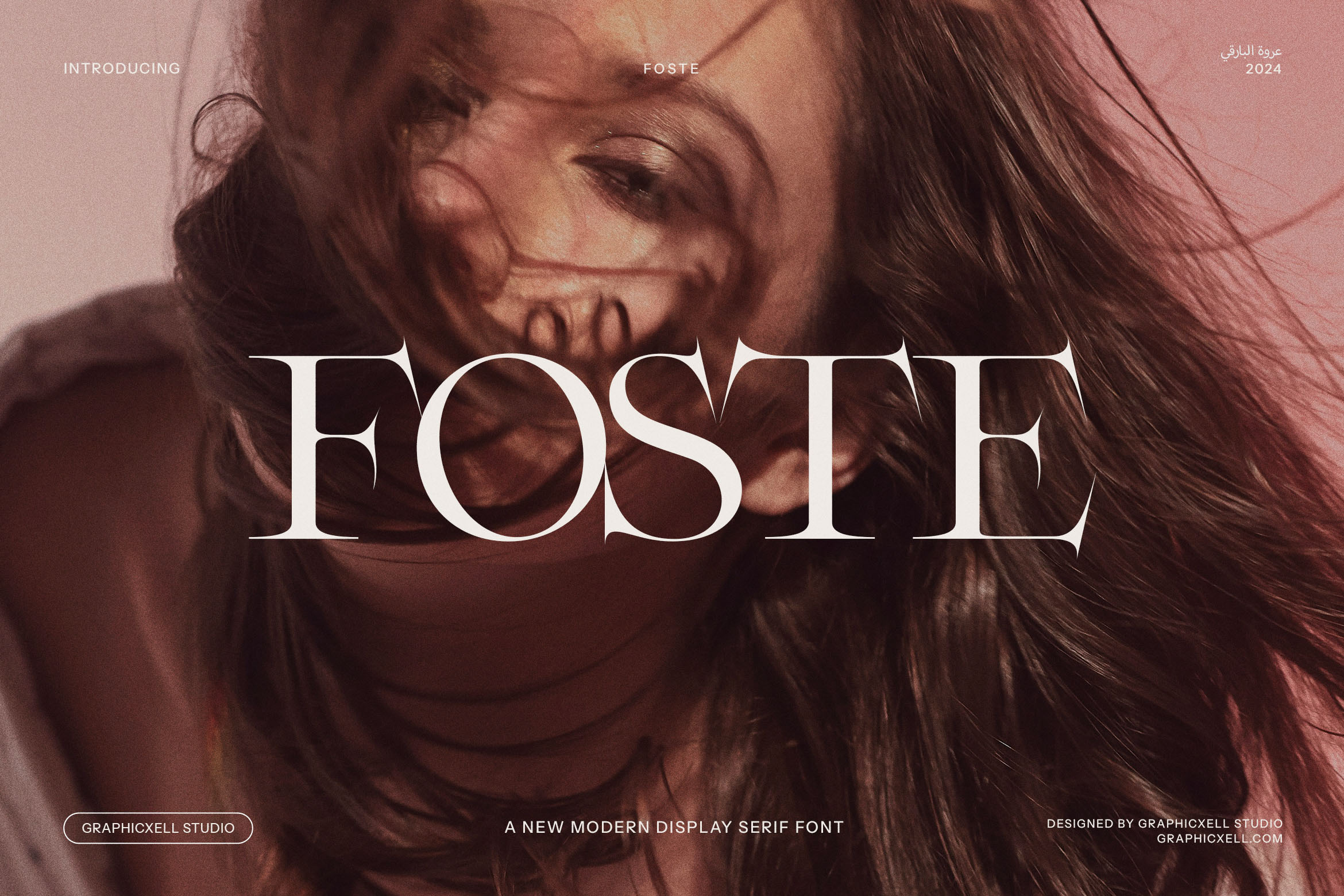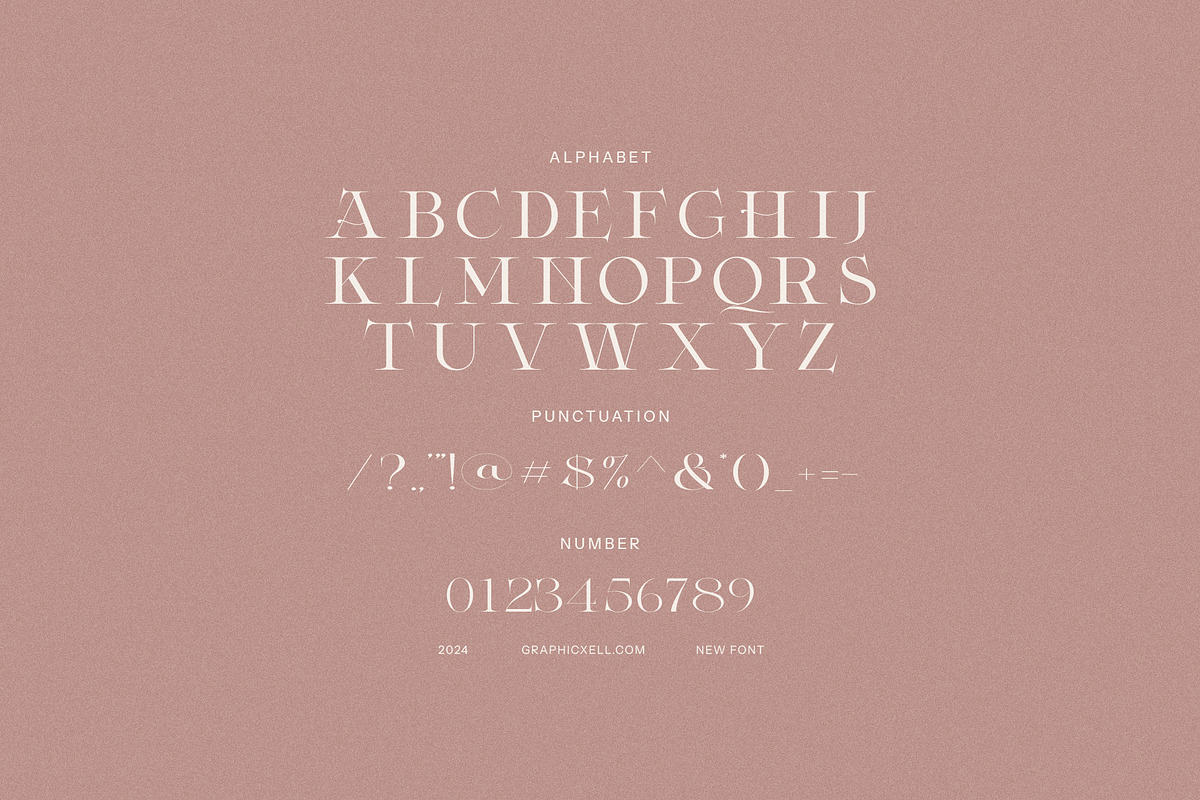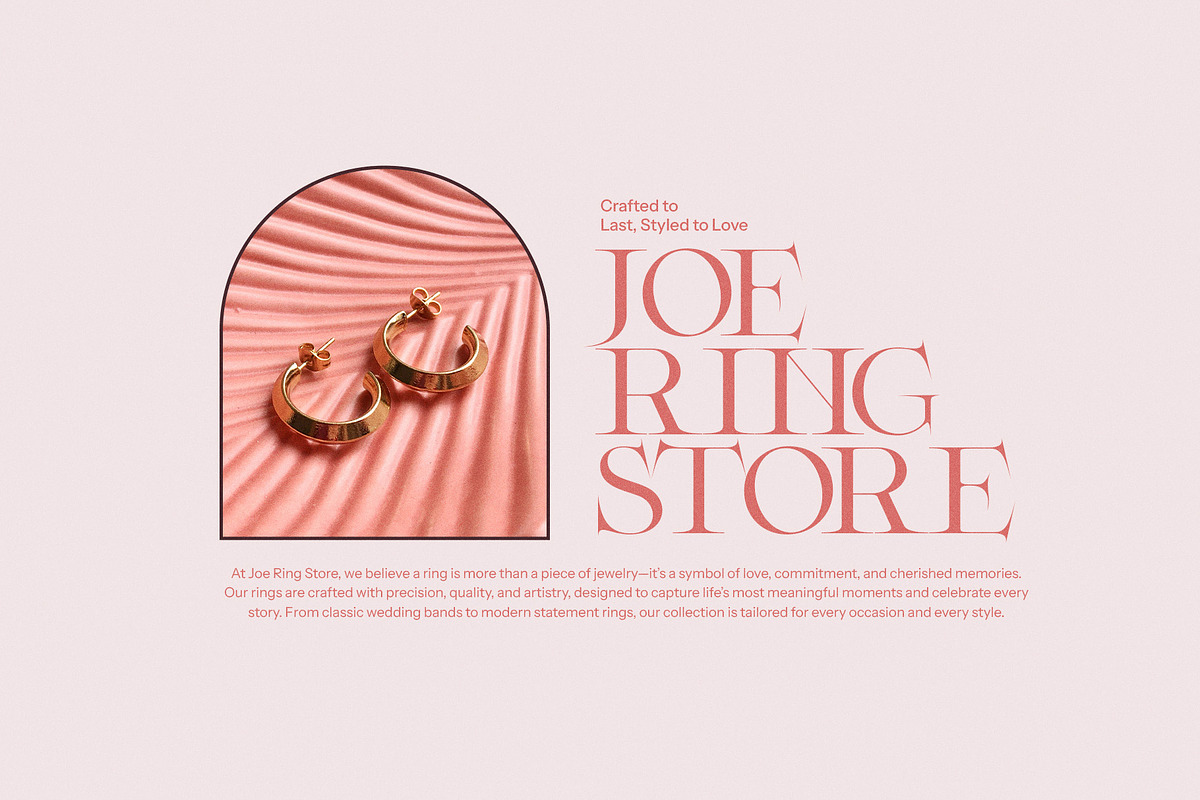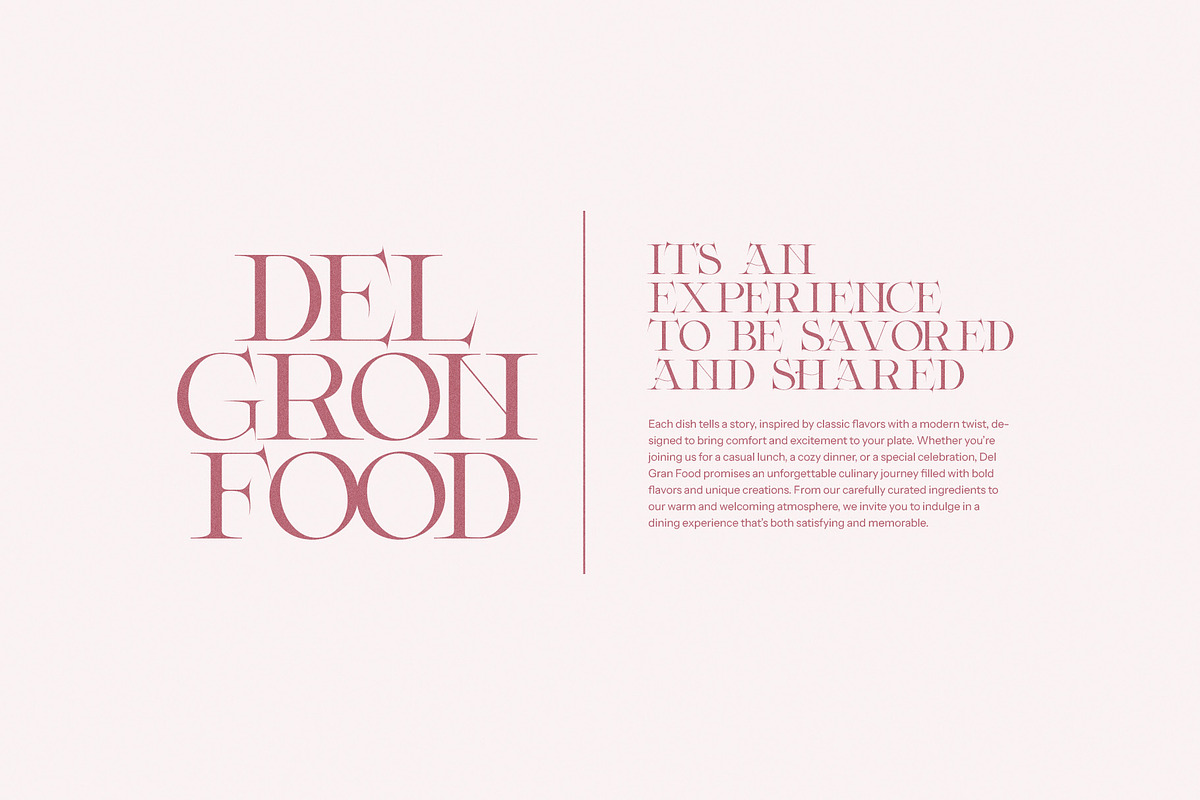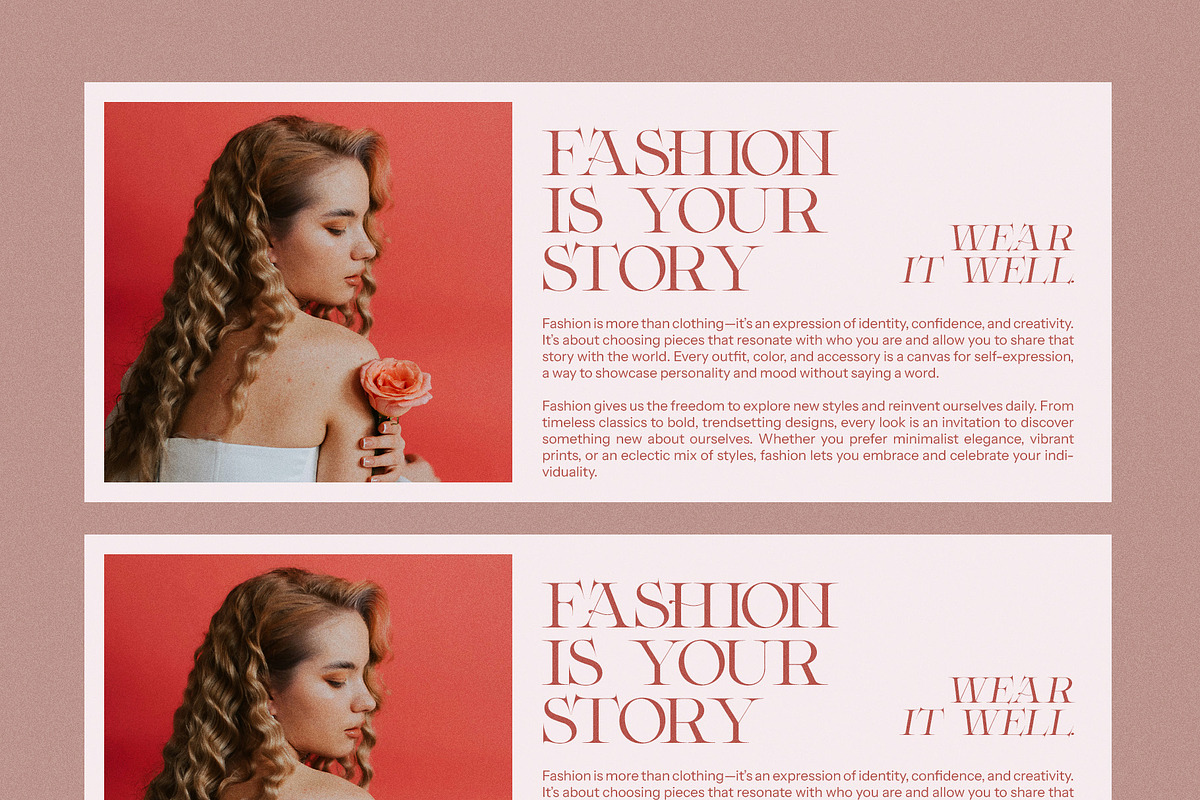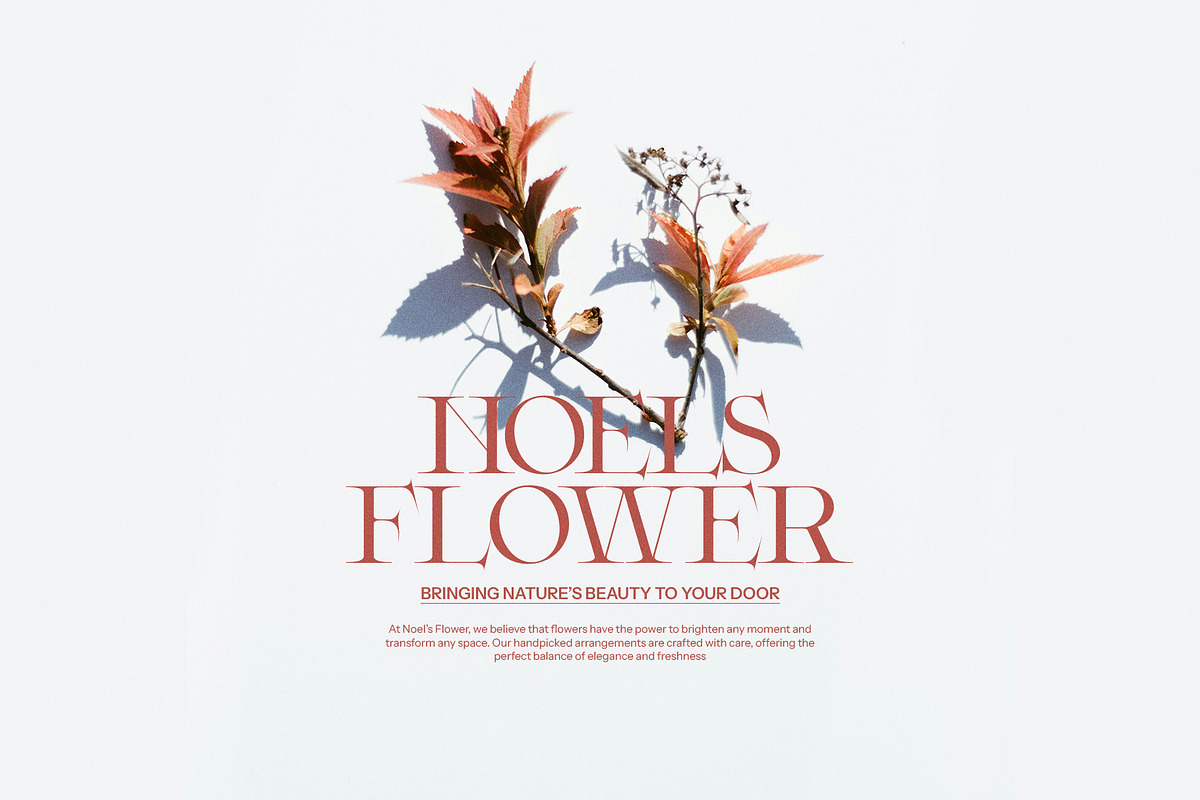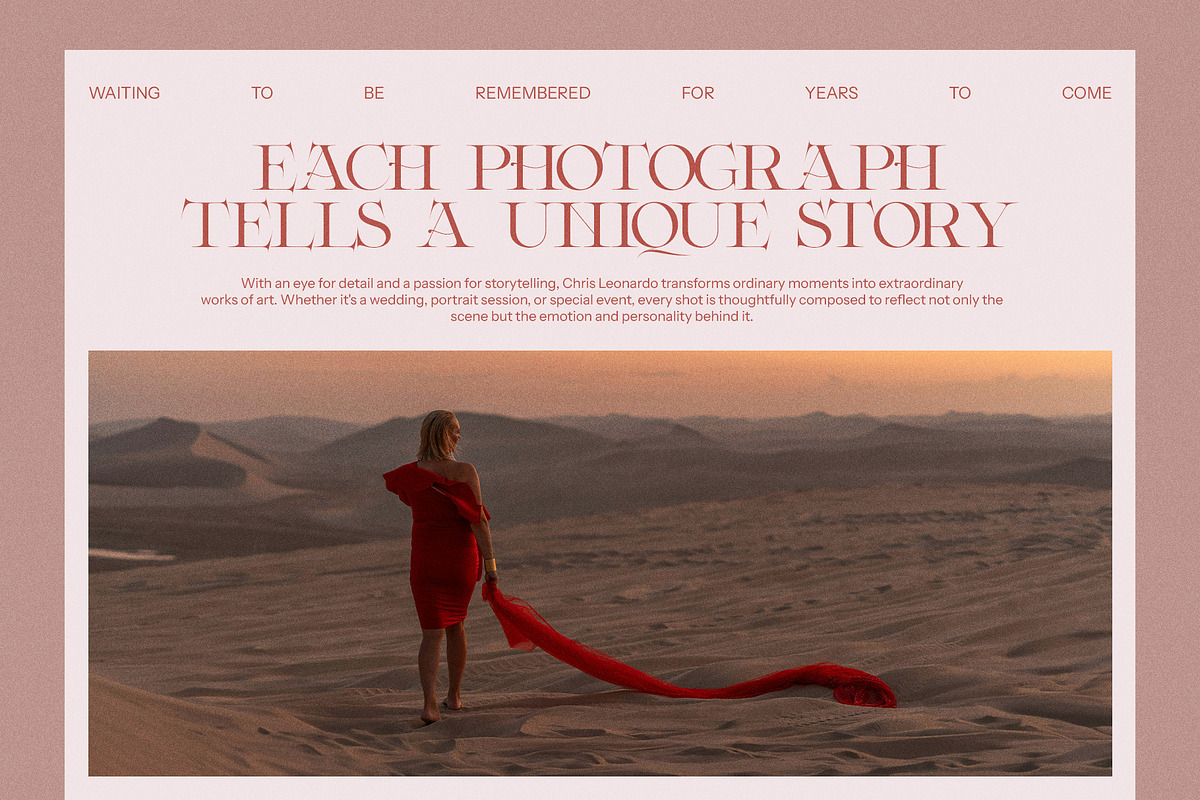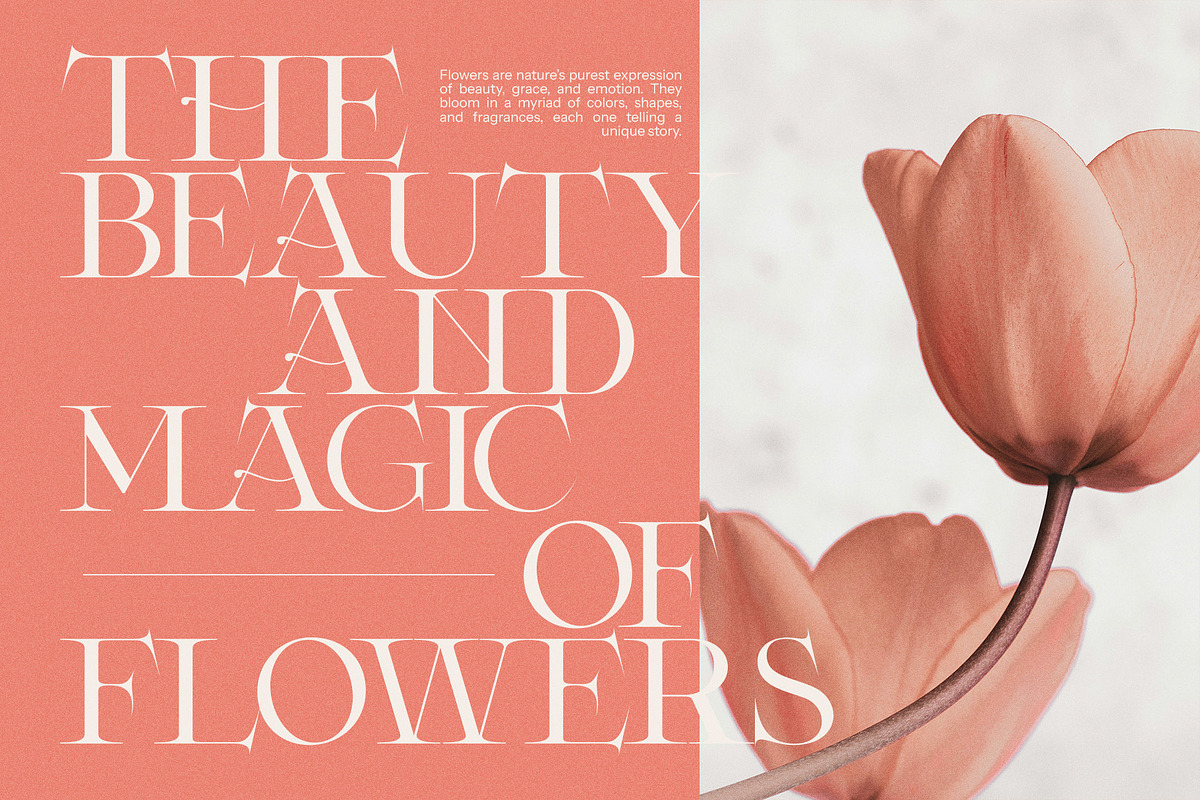
Foste - Elegant Serif Font
Introducing Foste, a bold and elegant display serif font that effortlessly captures the essence of vintage sophistication. With its sharp, elongated corners and unique proportions, Foste channels a classic aesthetic while offering a fresh twist on traditional serif fonts. Its striking design is perfect for projects that demand both a refined and commanding presence, making it an ideal choice for logos, branding, and high-impact design work.
The distinct, angular corners give Foste an unmistakable vintage vibe, evoking the grandeur of old-world typography while maintaining a modern edge. This makes it an excellent font for premium branding, whether you're creating a standout logo, curating a chic boutique aesthetic, or designing eye-catching product packaging. Foste's unique structure adds personality to any layout, providing a striking contrast to minimalist designs and making it a versatile choice for magazines, websites, and advertisements.
From the pages of fashion magazines to the shelves of gourmet food products, Foste enhances any design with its timeless appeal. Whether you're crafting an elegant editorial layout, building a stylish website, or designing promotional materials for boutique businesses, Foste ensures your brand stands out with sophistication and flair. Its dynamic presence works beautifully across a variety of mediums, from print to digital, effortlessly blending vintage charm with contemporary style.
Elevate your next project with Foste – a font that balances elegance, uniqueness, and versatility for designs that leave a lasting impression.